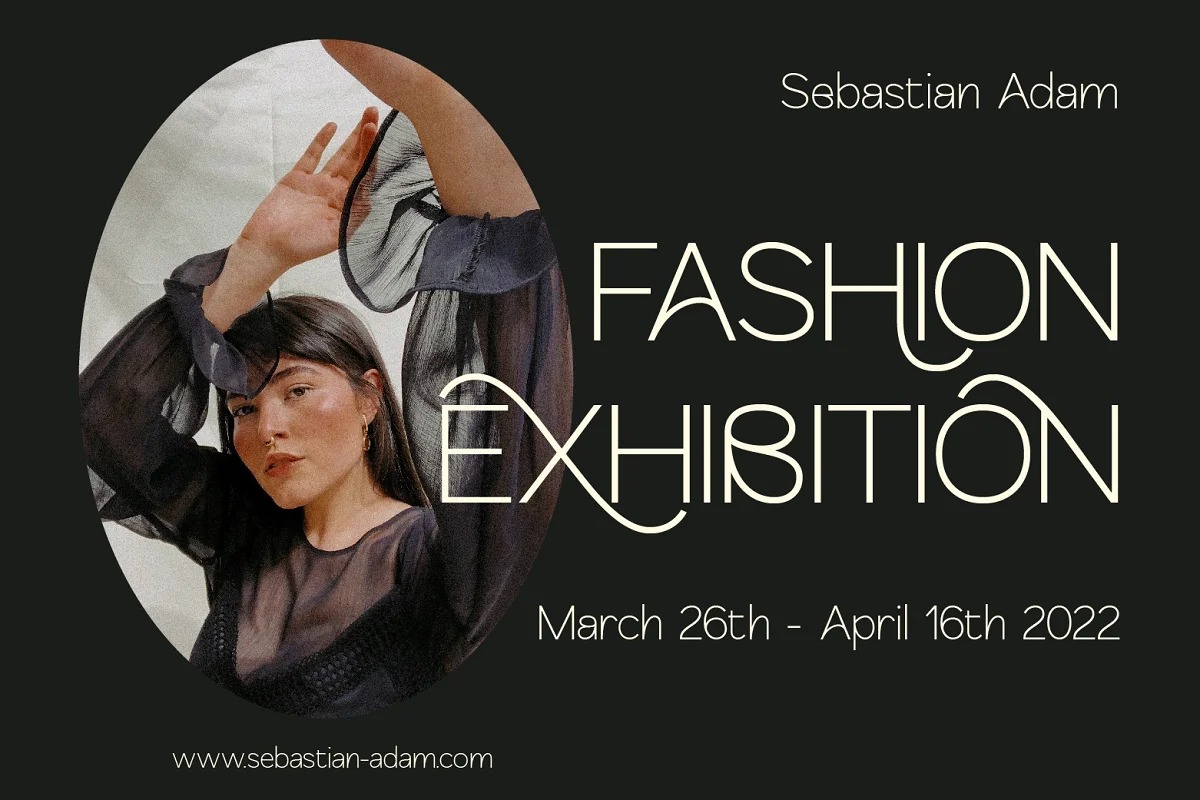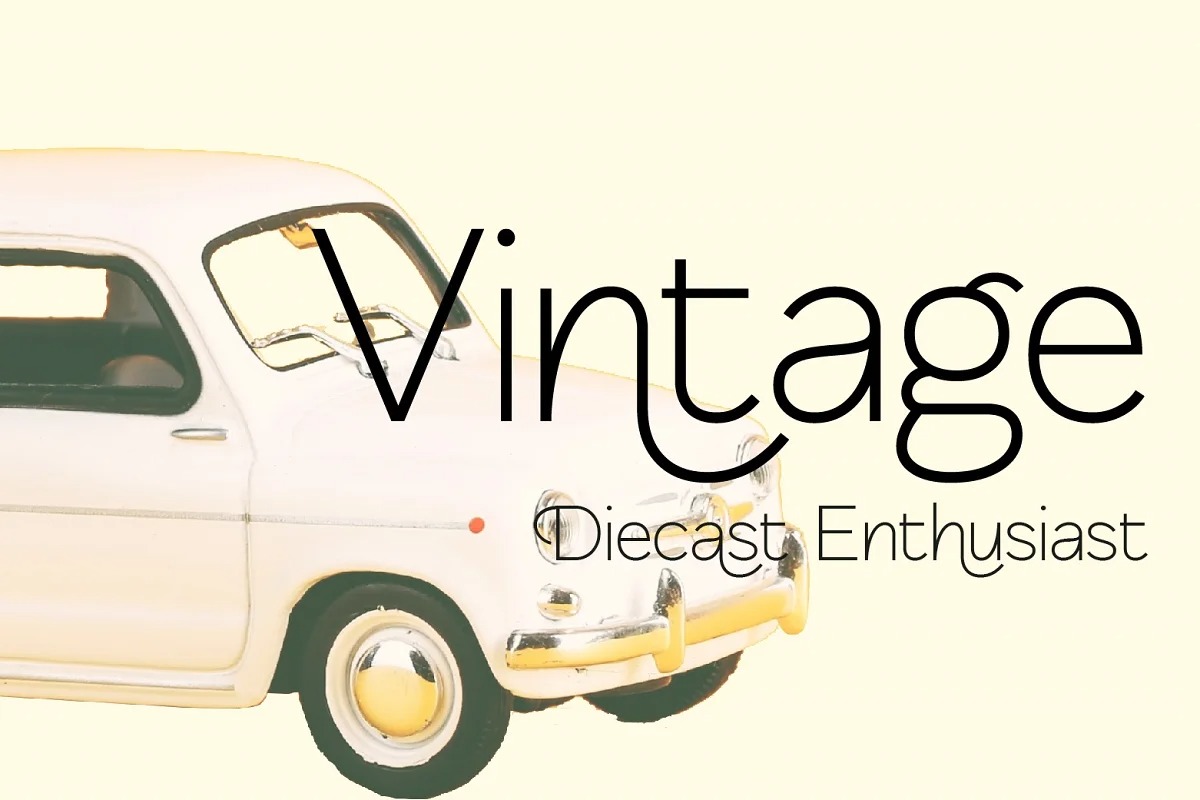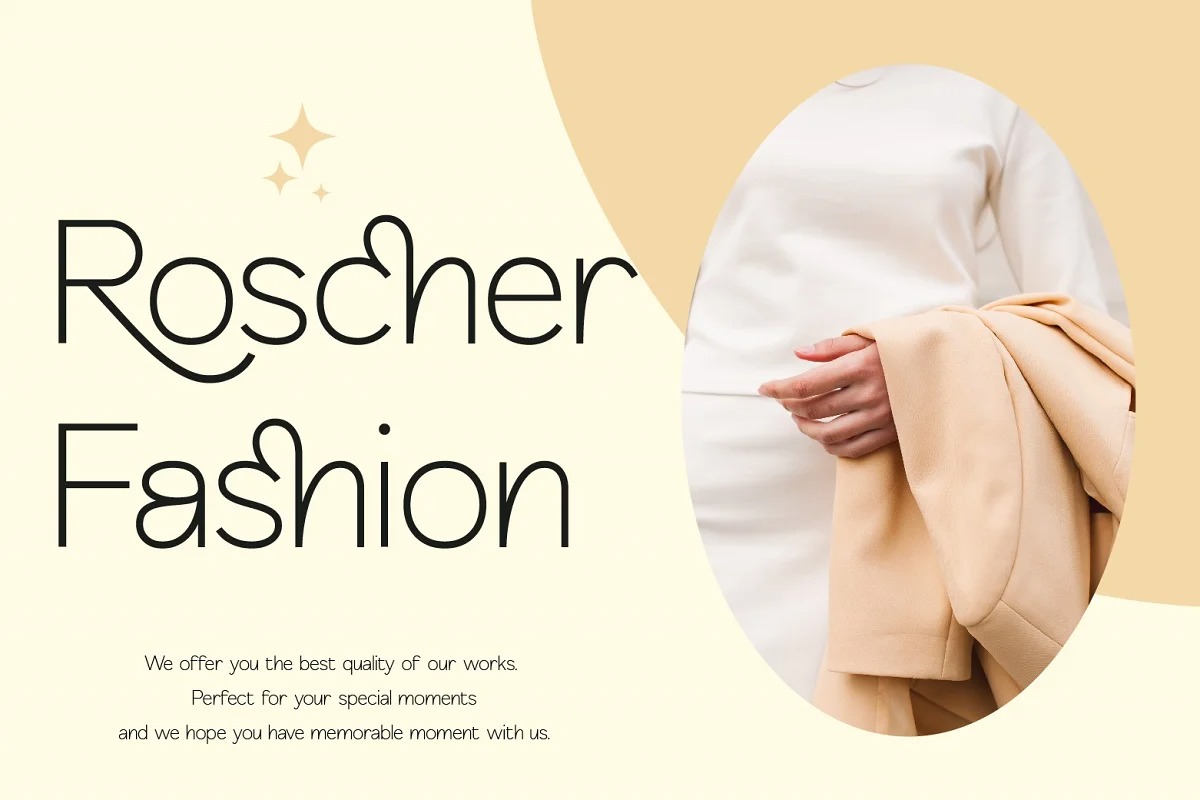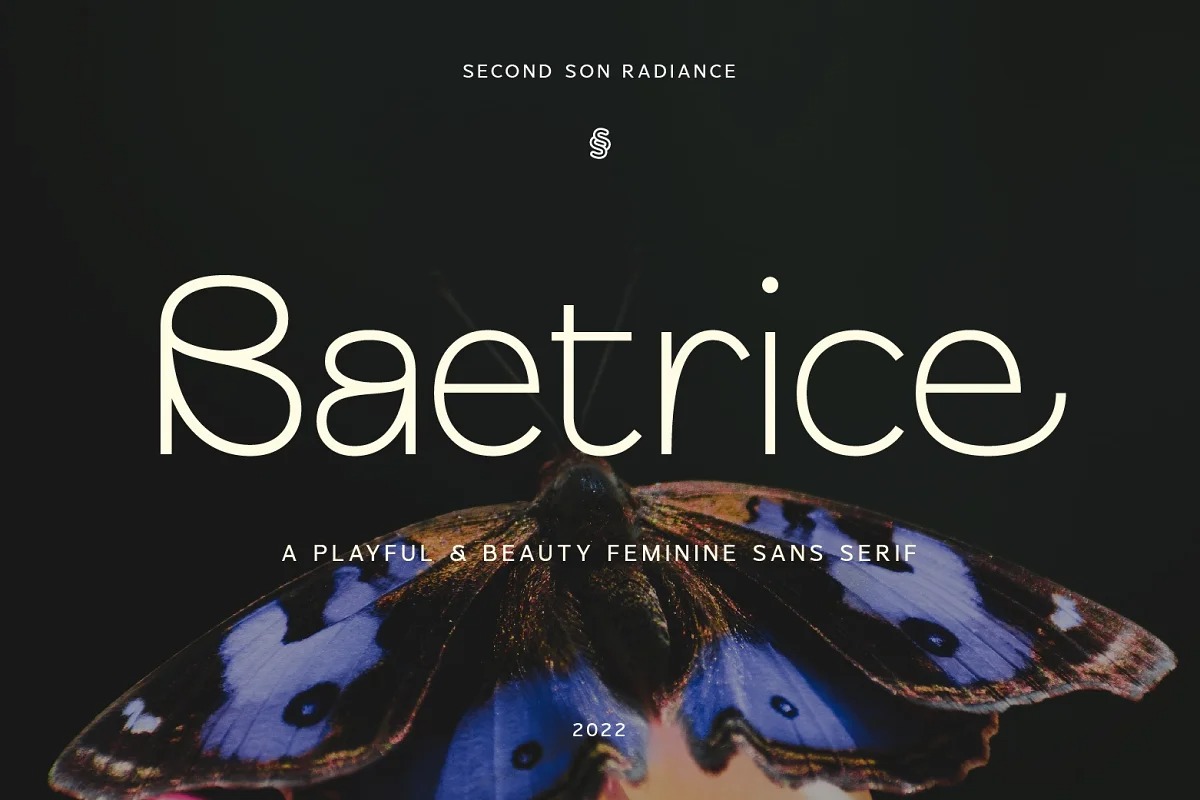
Baetrice Sans Serif Font is a gorgeous sans serif typeface that will easily become a classic typeface in your library. Such as luxury logo branding, editorial design, stationery design, Elegant Modern Fashion, Salon Beauty, feminine advertising design, blog / website design, card invitation, art quote, home decor, book/cover title, special events ( wedding, birthday, etc ), and any more.